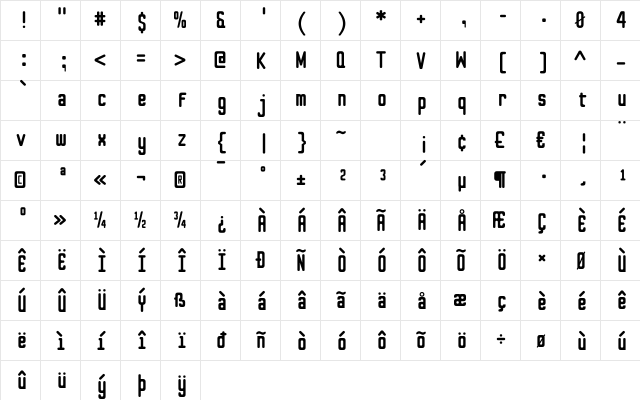
SquareShooter Mono Regular
Design Context for SquareShooter Mono Typeface
SquareShooter Mono brings the precise, column-aligned rhythm of monospaced typography to designs that value technical clarity and systematic order.
Pro Tip: Pair SquareShooter Mono with a proportional sans for UI contexts where code-style labels and regular body copy need to coexist.